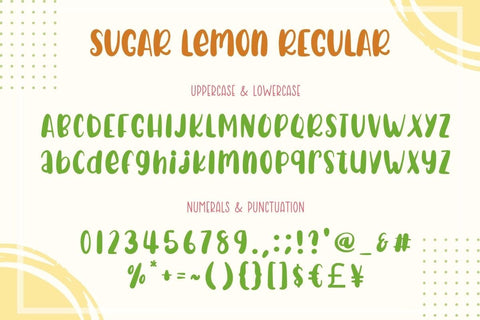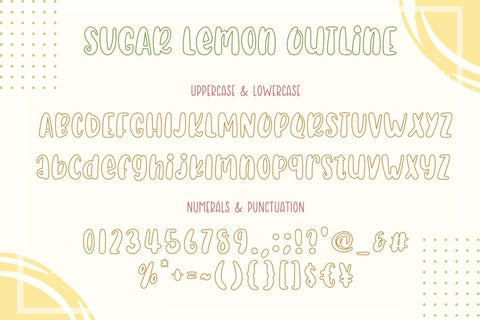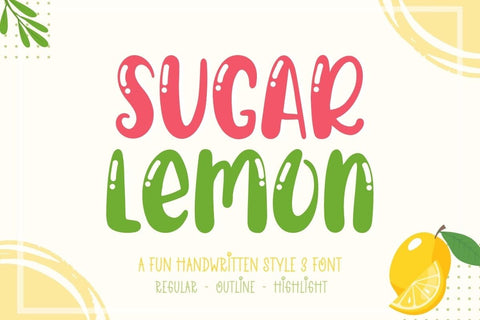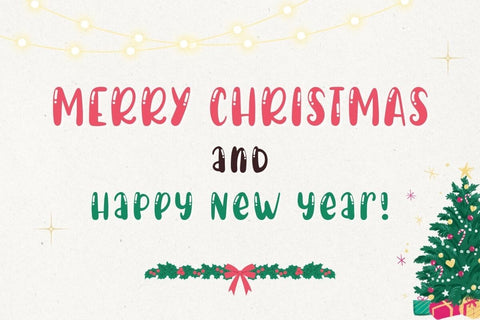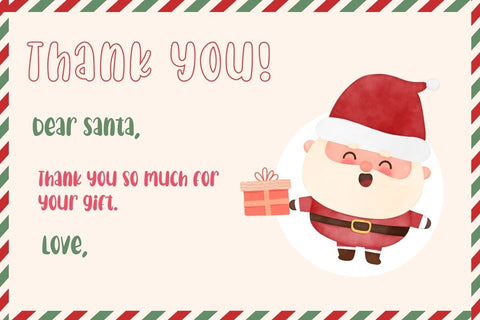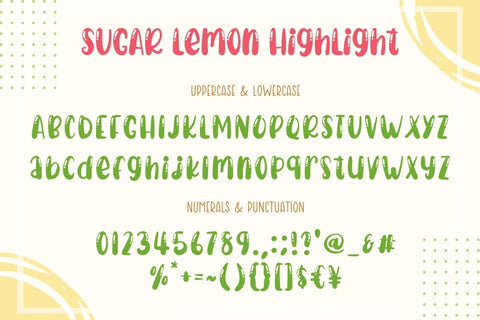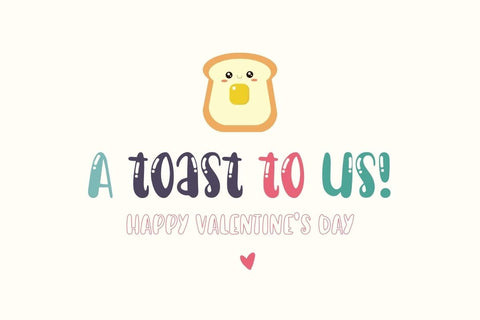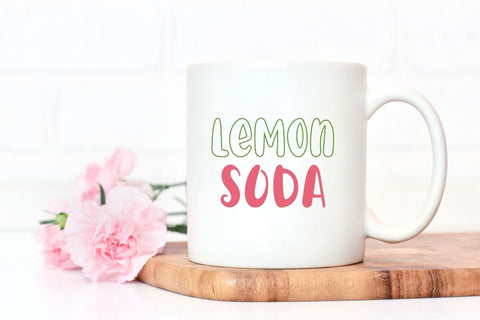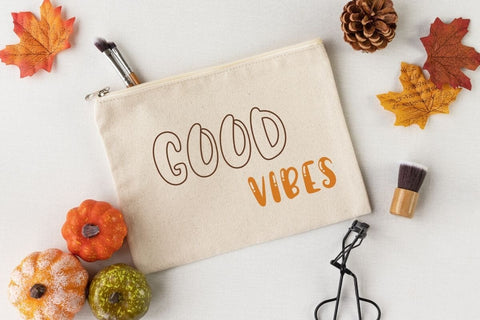
Sugar Lemon - Display Font
Sugar Lemon is a fun display and handwritten font. There are three styles: Regular, outline, and highlight. You can have fun mixing and matching. Perfect for creating various new designs to match products such as banners, content, mugs, cards, shirts, stationery, social media posts, and more!